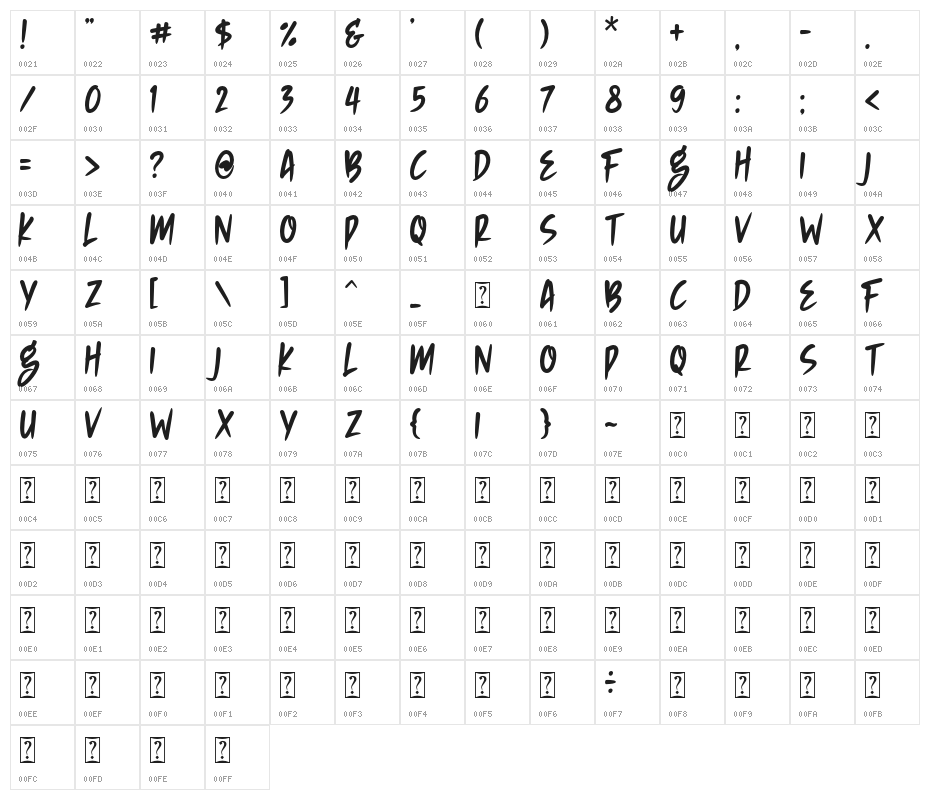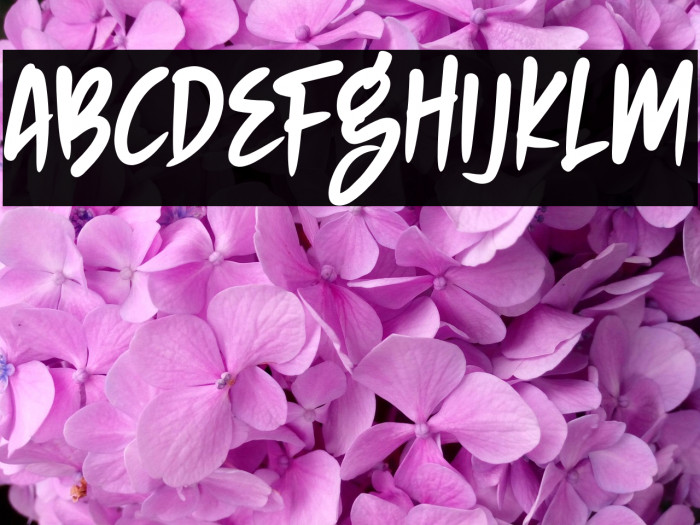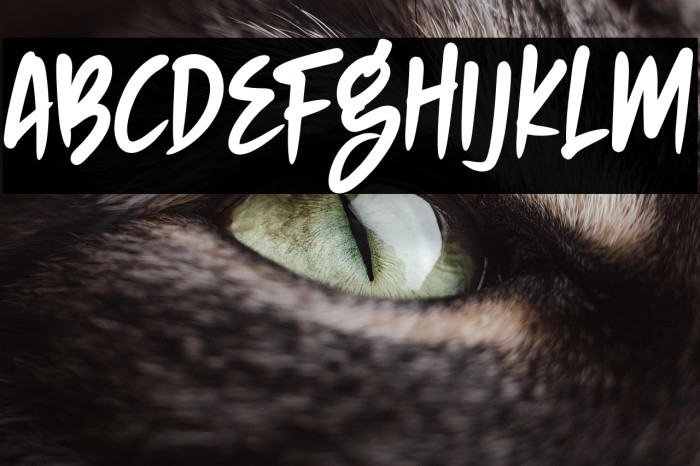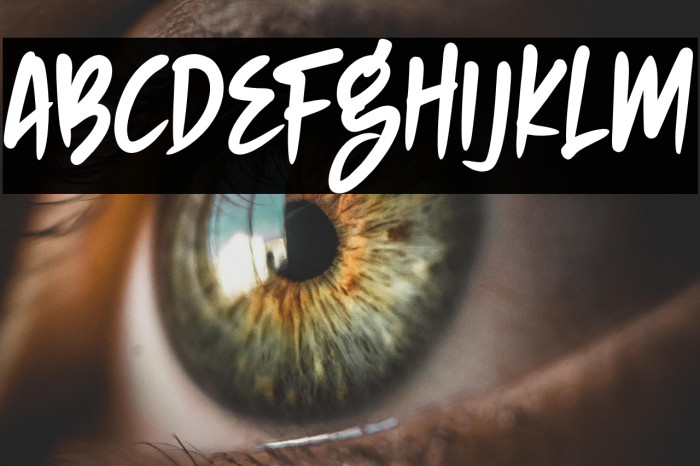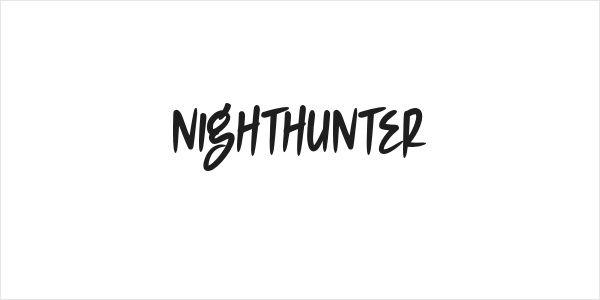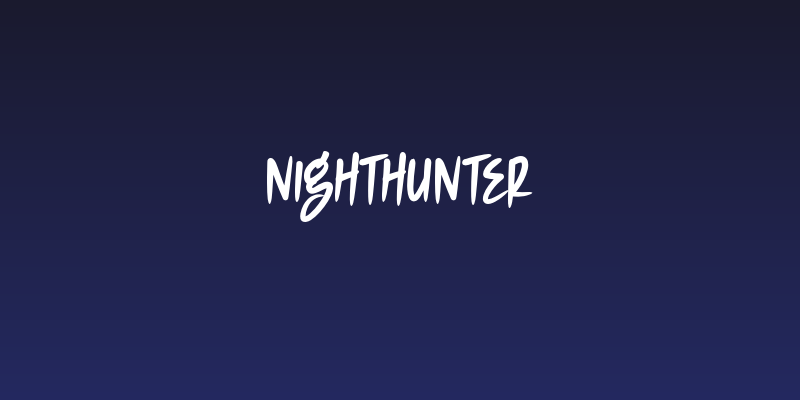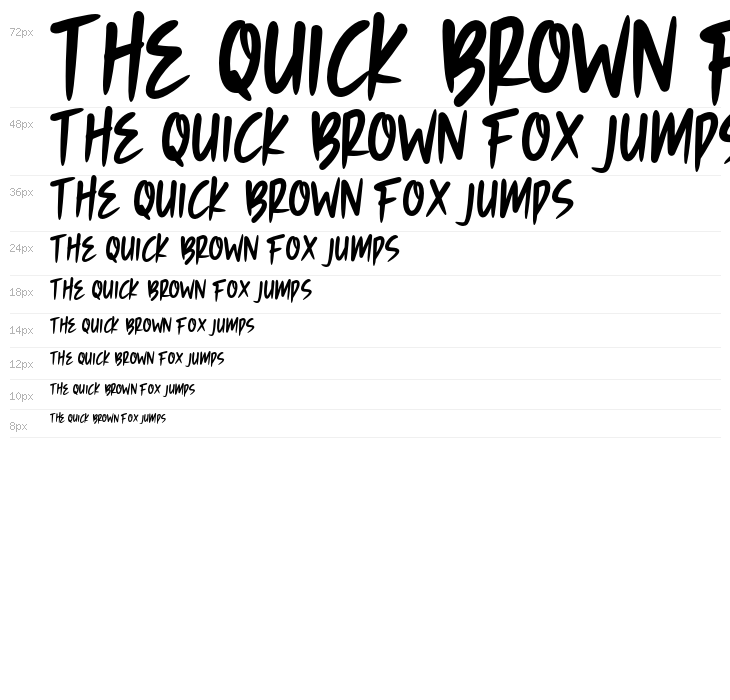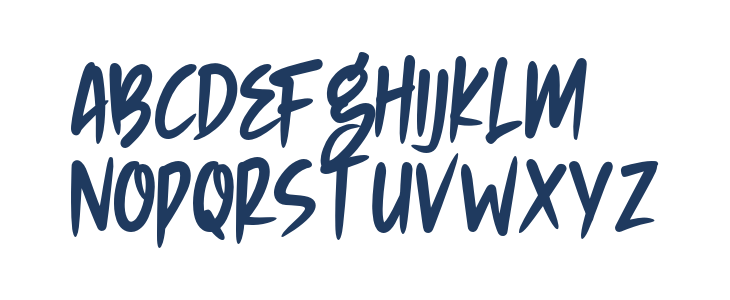
NIGHTHUNTER Font
NIGHTHUNTER Description
This font features a bold, energetic style with a handwritten appearance. The letters are slightly slanted, giving a dynamic and lively feel. The strokes are thick and consistent, providing a strong presence on the page. The uppercase and lowercase letters maintain a cohesive look, while the numbers and special characters complement the overall design. The font's playful yet assertive nature makes it suitable for projects that require a personal touch with a bold statement.
| Use Case | Logos, Headlines, Posters |
| Proposed Projects | Ideal for branding, posters, social media graphics, and any project that needs a bold, personal touch. |